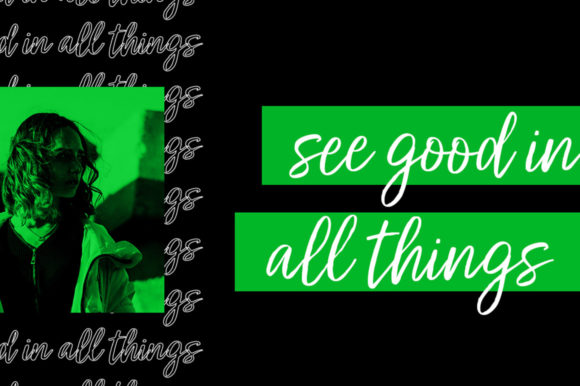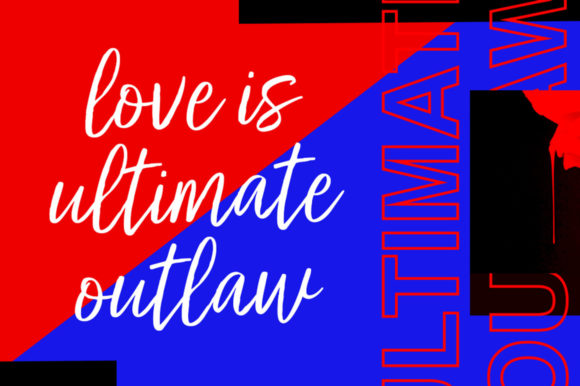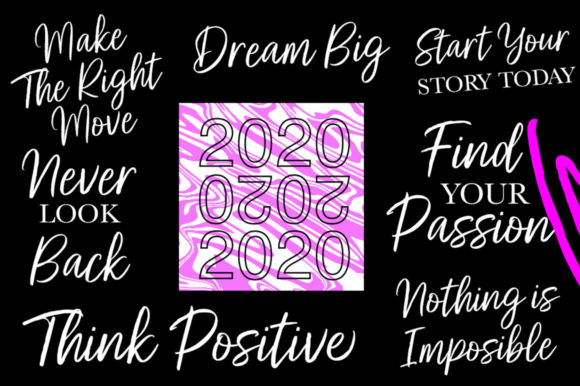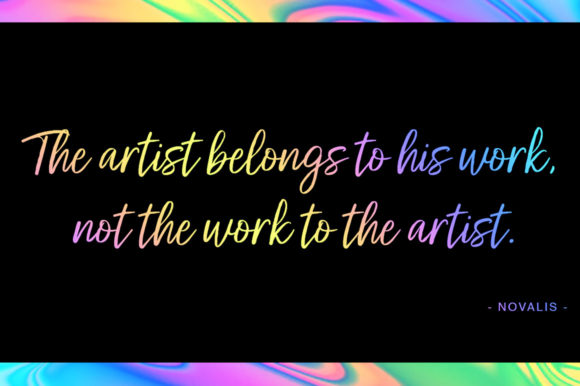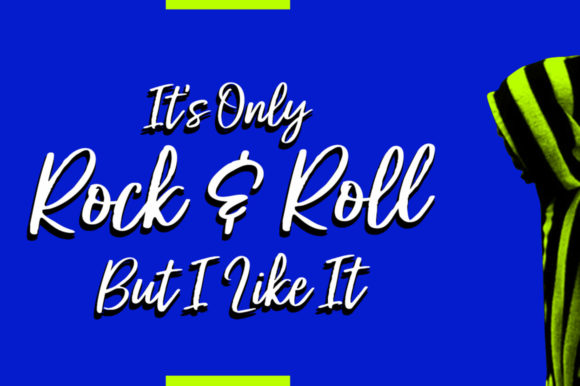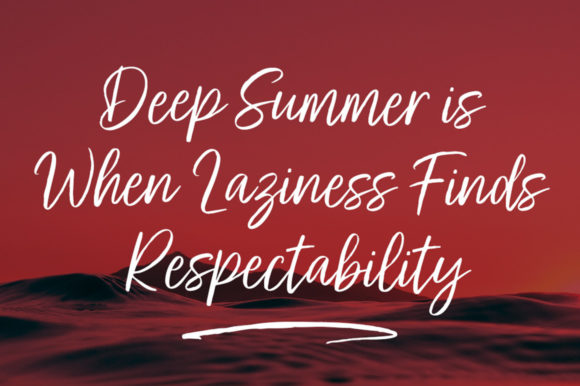
Discover the Magic of the Alishba Font
As designers, we’ve all been there – staring at a blank canvas, waiting for the perfect font to bring our vision to life. For many of us, the search for the perfect script font can be a daunting task, but what if I told you that you’ve just found it? The Alishba Font is a beautiful and flowing script font that’s perfect for adding a touch of elegance and sophistication to any design project.
With its versatile and modern look, the Alishba Font is a valuable tool for designers looking to elevate their work. Whether you’re creating logos, branding materials, invitations, or social media posts, this font is sure to make a lasting impression. Its unique design and versatility make it a must-have for any designer looking to take their work to the next level.
Alishba Font Key Features
- Font Family: Alishba Font is a unique and modern script font, ideal for creative projects and designs.
- Size: Alishba Font comes in 1 font style, with a single weight, making it easy to use and versatile.
- Unique Characteristics: The font features a unique, handwritten style with a mix of cursive and script elements, making it perfect for adding a personal touch to designs.
- Character Count: Alishba Font includes a wide range of characters, including uppercase and lowercase letters, numbers, and punctuation marks.
Alishba Font Review
Overall, I think Alishba Font is a nice addition to any font collection, but it has its limitations. Let’s start with the good stuff: ✨ The font’s elegant and modern design makes it perfect for creating a sophisticated and luxurious feel in your designs. The clean lines and subtle curves add a touch of sophistication, making it ideal for branding, advertising, and editorial content.
The font’s versatility is another plus ✨. It works well in both print and digital media, making it a great choice for a wide range of applications. Additionally, the font’s extensive character set and language support make it a great option for designers who need to work with multiple languages.
- ⚠️ The font may not be suitable for use in small text sizes, as the letters can become difficult to read.
- ⚠️ The font’s weight range is limited, which may make it difficult to achieve the desired level of contrast in your designs.
- ⚠️ The font’s italic and bold styles may not be as refined as the regular weight, which can affect the overall look of your design.
Overall, Alishba Font is a solid choice for designers who need a modern and elegant font for their projects. While it has some limitations, its strengths make it a great addition to any font collection.
- Use it for titles and headings to add a touch of elegance.
Alishba Font is perfect for:
- Editorial and publishing projects.